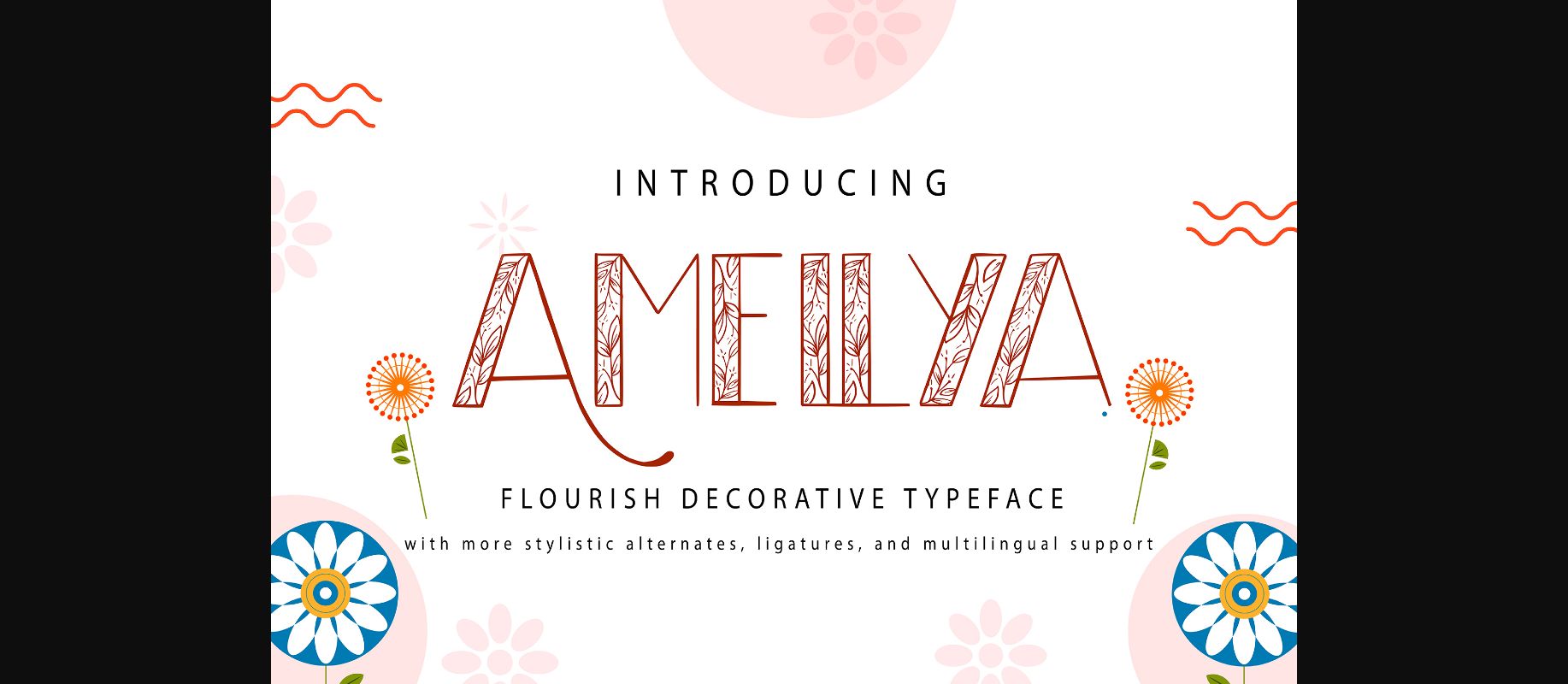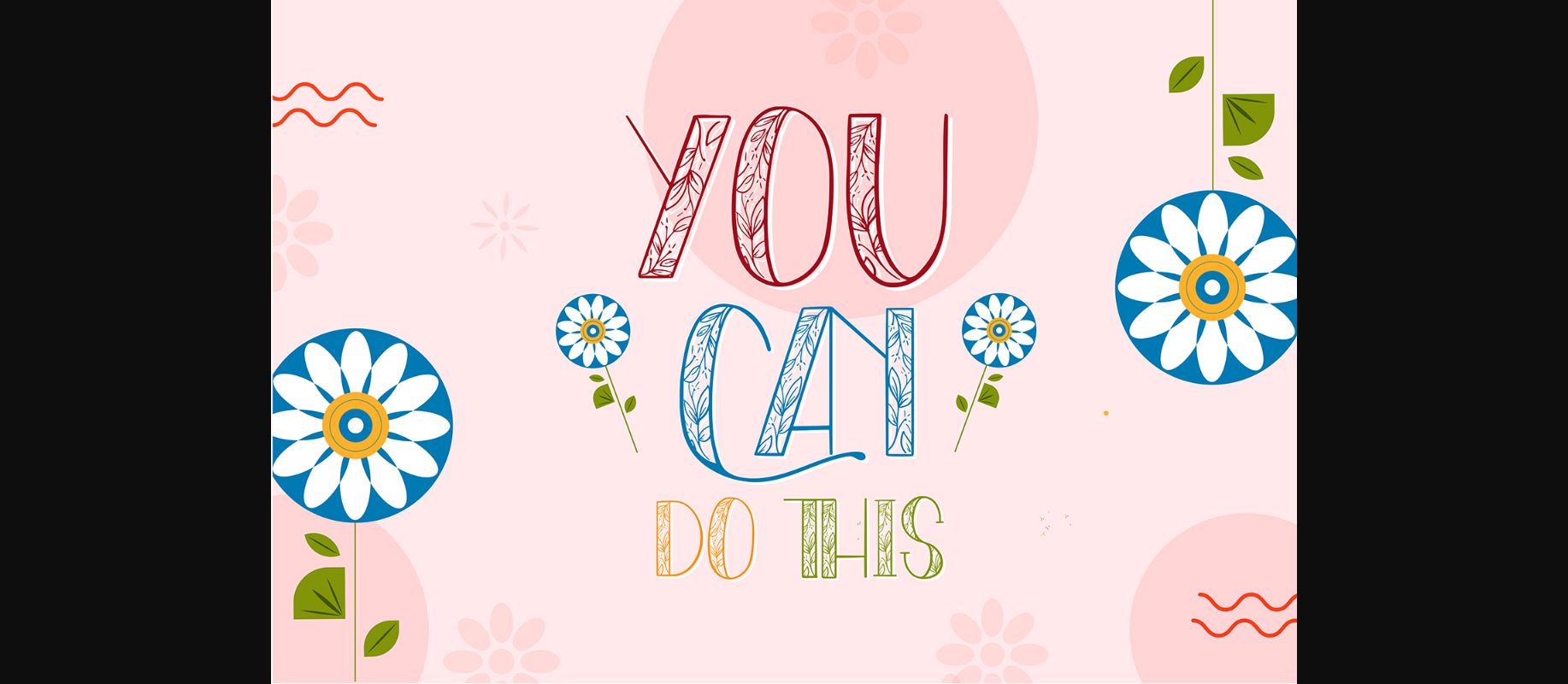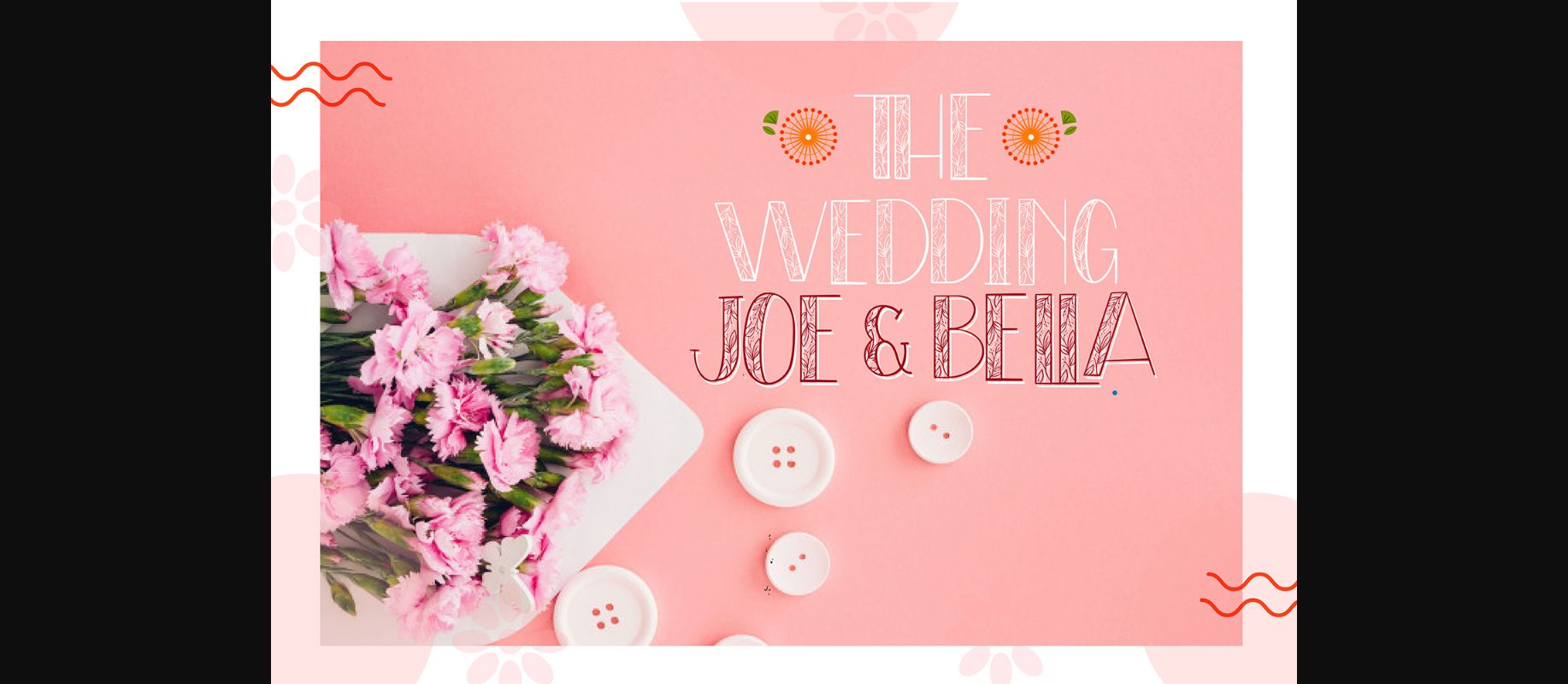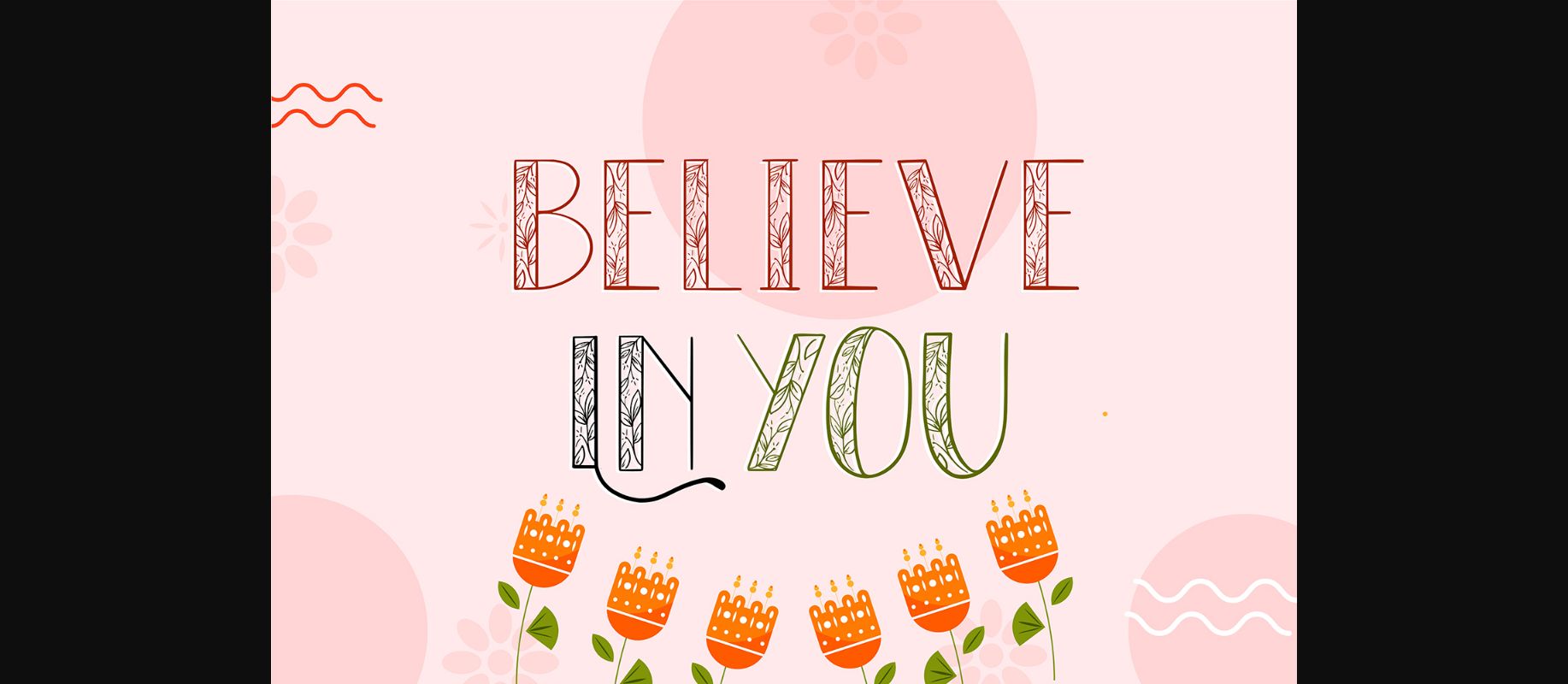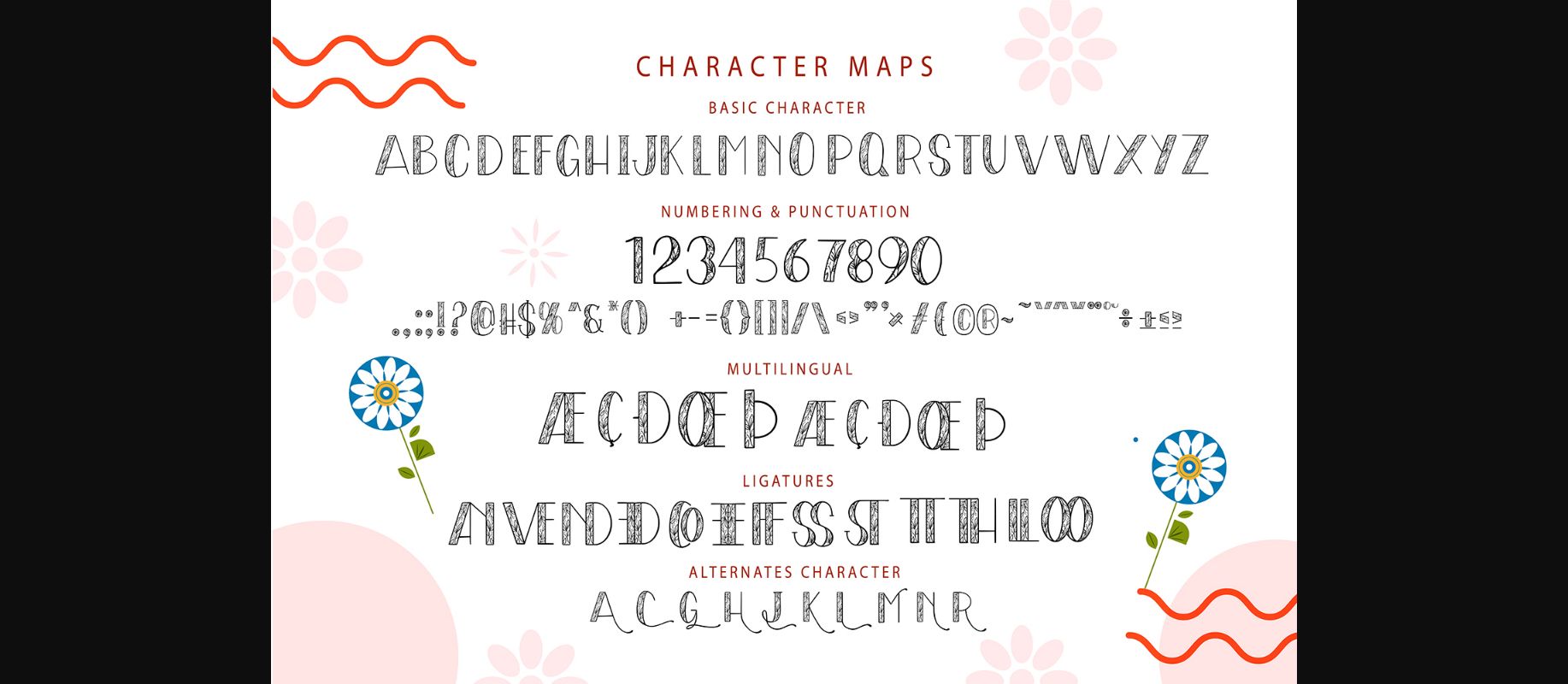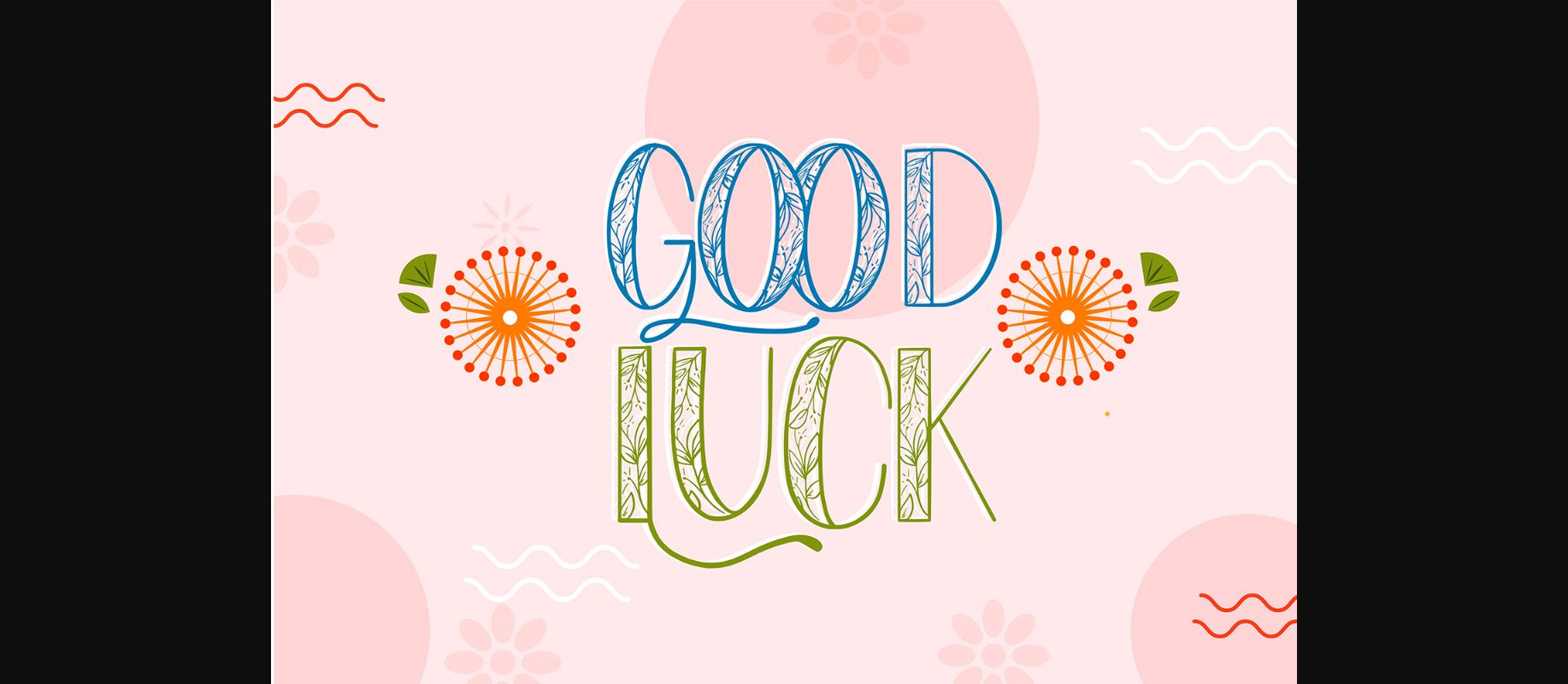
About Amellya Font
Amellya is a beautiful decorative font. It features a flower themed style an it is perfect for greeting cards, branding materials, quotes, posters and much more!